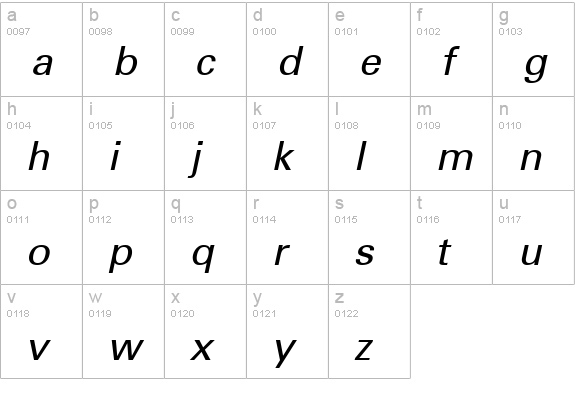
Nova SSi Italic Font Details
Nova SSi Italic is a distinctive, italic variant in the Nova typeface family \xE2\x80\x94 well suited to design and typography projects.
The Nova SSi Italic font is a modern and stylish typeface that exudes elegance and sophistication. Its sleek and slanted design adds a touch of flair to any project, making it perfect for creative and eye-catching designs. This font is versatile and can be used for a variety of purposes, from branding to editorial design. What sets Nova SSi Italic font apart is that it is available for free download at FontsMarket.com. This means that you can easily access this high-quality font without any cost, making it a valuable resource for designers and creatives looking to elevate their work. Don't miss out on the opportunity to enhance your projects with the distinctive charm of Nova SSi Italic font - download it now and let your creativity soar!